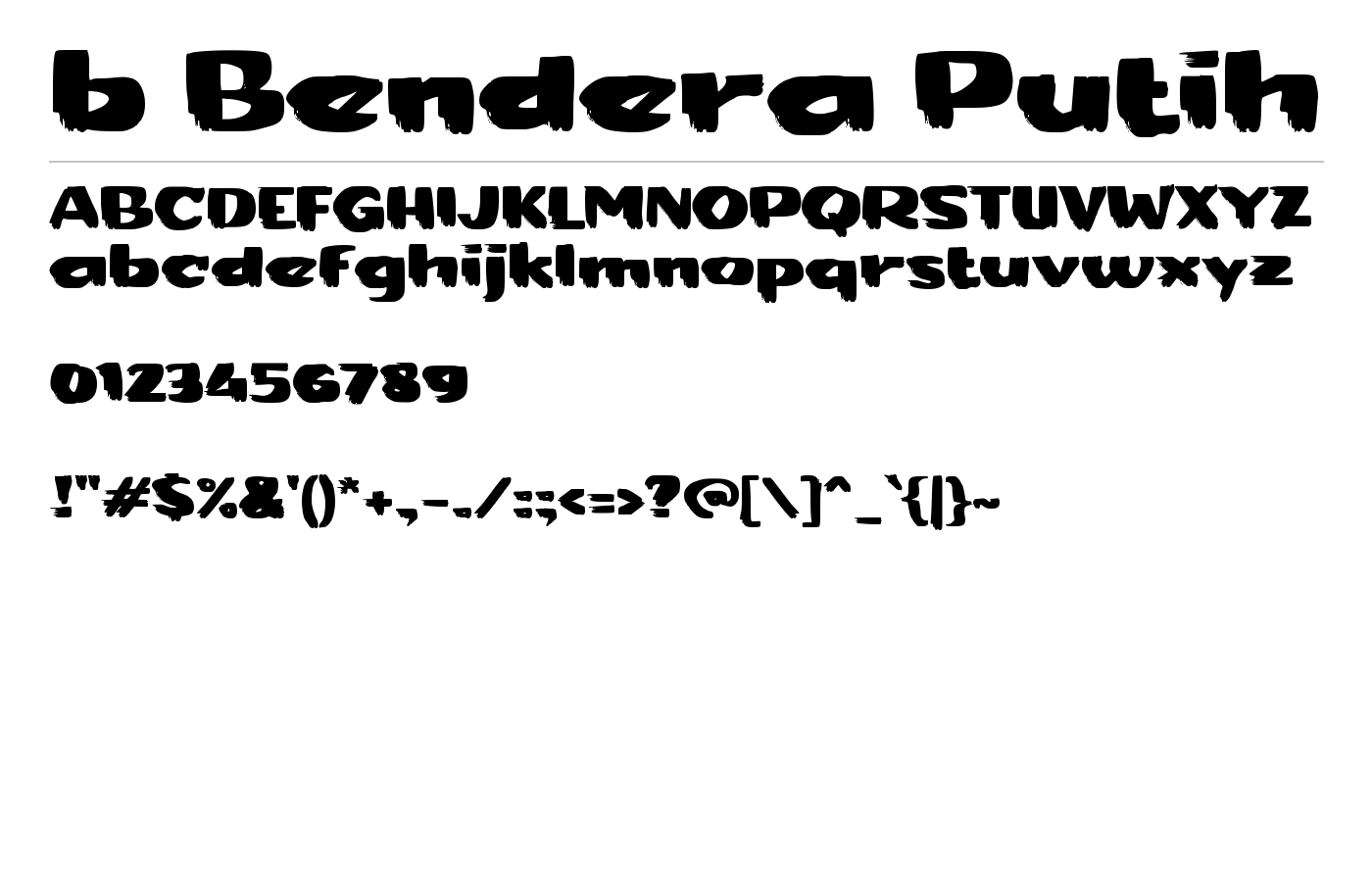
B Bendera Putih is a bold, playful display font with a hand-painted, brushstroke texture that gives it an organic and energetic feel. Its chunky letterforms and irregular edges make it ideal for designs seeking a casual, artistic vibe, perfect for posters, logos, and creative branding where a strong, dynamic impact is desired.
b Bendera Putih Font